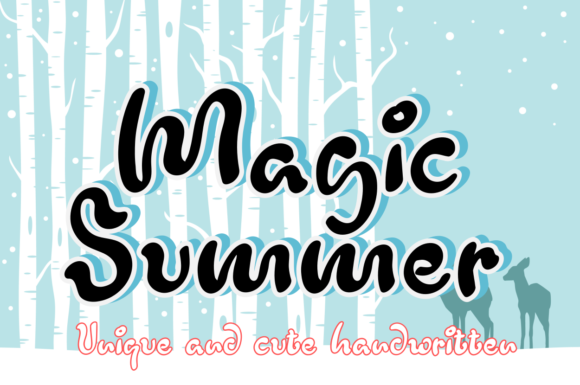
Unleash the whimsical charm of your creative projects with Magic Summer Font – a delightful handwritten font that dances with playfulness and cuteness. Let your imagination soar as you explore its enchanting curves and cheerful strokes, adding a touch of magic to your digital designs, presentations, greeting cards, and more.
With Magic Summer Font, you'll embark on a delightful journey of artistic expression. Its unique handwritten style brings a personal touch to your creations, making them stand out from the mundane. Whether you're crafting heartwarming invitations, designing captivating social media graphics, or creating eye-catching logos, Magic Summer Font will elevate your designs with its charming and playful aura.
Immerse yourself in a world of creativity with Magic Summer Font. Its versatility knows no bounds, allowing you to weave your creative magic across a myriad of projects. From enchanting invitations to captivating posters, from heartfelt greeting cards to dynamic presentations, Magic Summer Font seamlessly adapts to your artistic vision, adding a touch of whimsy and joy to every endeavor.
Envision the smiles of your loved ones as they receive a greeting card adorned with Magic Summer Font's cheerful greetings. Picture the awe-inspiring reactions as your social media posts captivate audiences with their playful graphics, crafted with Magic Summer Font's enchanting strokes. Experience the satisfaction of presenting your ideas with confidence, using Magic Summer Font to create presentations that leave a lasting impression.
Step into the realm of artistic freedom with Magic Summer Font. Its boundless potential awaits your creative touch, ready to transform ordinary projects into extraordinary masterpieces. Embrace the magic, let your imagination run wild, and witness the wonders that unfold when you choose Magic Summer Font as your creative companion.